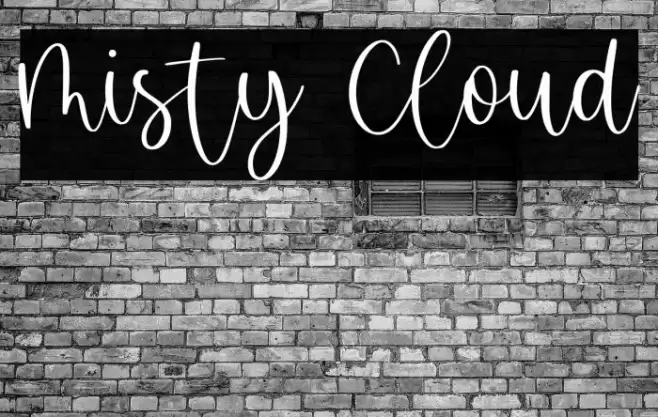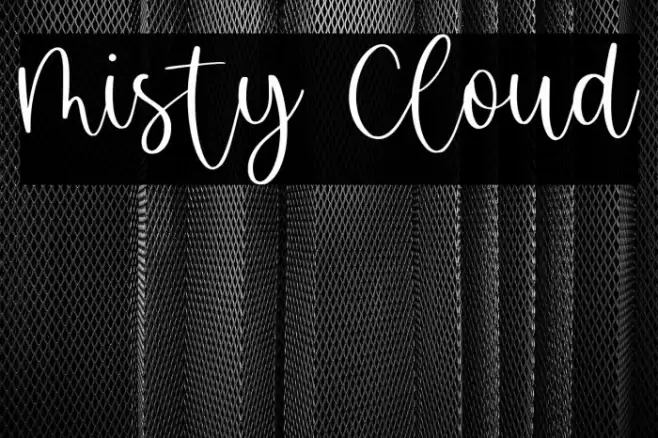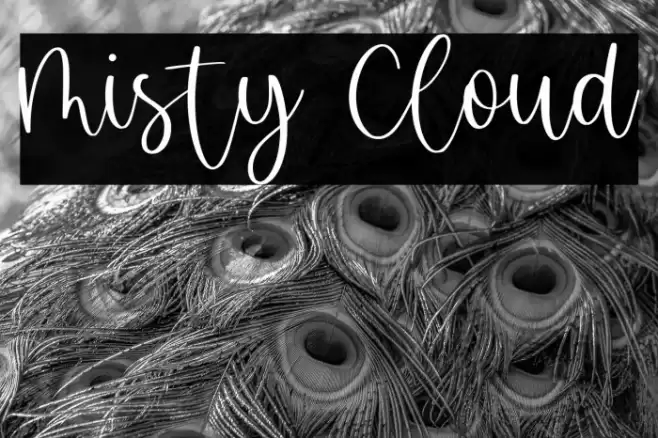
Misty Cloud Font
Misty Cloud Description
This font features a playful and elegant handwritten style with a modern twist. The characters are fluid and connected, giving a sense of movement and grace. The uppercase letters are bold and expressive, while the lowercase letters maintain a consistent flow with occasional loops and swirls. The numerals are clear and easy to read, complementing the overall aesthetic. Special characters are designed with the same attention to detail, ensuring a cohesive look across all text elements. This font is perfect for adding a personal touch to any project.
A playful, elegant handwritten font with a modern twist from Uncategorized fonts.
- Proposed Projects: Ideal for wedding invitations, greeting cards, branding, and social media graphics.
- Use Case: Logos, Headlines, Invitations